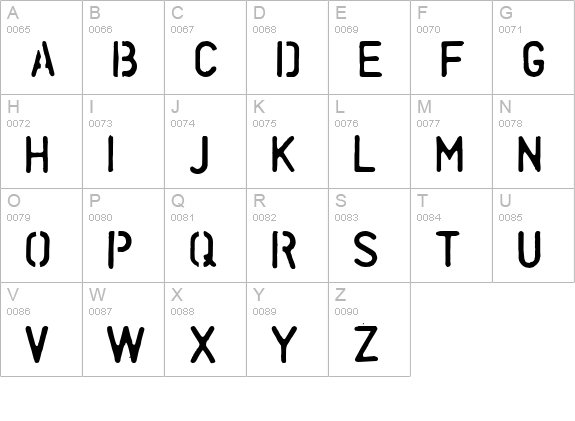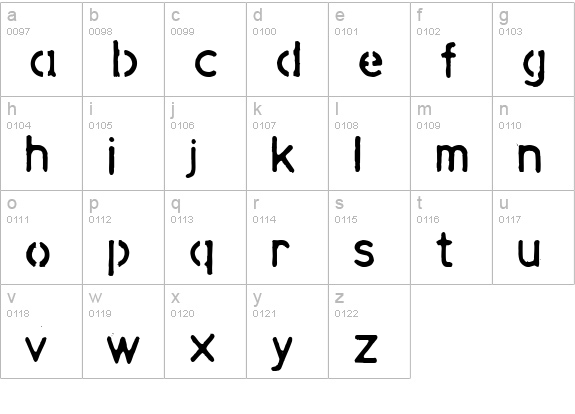
Space Junk Font Details
Introducing Space Junk, a captivating and futuristic font that will transport you into the depths of outer space. With its sleek and modern design, Space Junk is the perfect choice for projects that require a touch of cosmic elegance. This font's unique and stylish letterforms are reminiscent of the celestial debris that orbits our planet, creating a visual representation of the vastness and mystery of the universe. Each character is carefully crafted to evoke a sense of wonder and fascination, making Space Junk an ideal choice for logos, headlines, posters, and more. But what sets Space Junk apart from other fonts is not just its stunning aesthetics – it is also available to you completely free of charge. That's right, this remarkable font can be downloaded at no cost from FontsMarket.com, making it accessible to designers, creatives, and enthusiasts alike. Whether you're working on a futuristic sci-fi project, a space-themed event, or simply want to add a touch of cosmic flair to your designs, Space Junk is the perfect companion. Its versatility and eye-catching appeal will elevate your work to new heights, capturing the imagination of your audience. So why wait? Unleash your creativity and embark on a cosmic journey with Space Junk. Download this incredible font for free at FontsMarket.com and let your designs transcend the boundaries of the known universe.